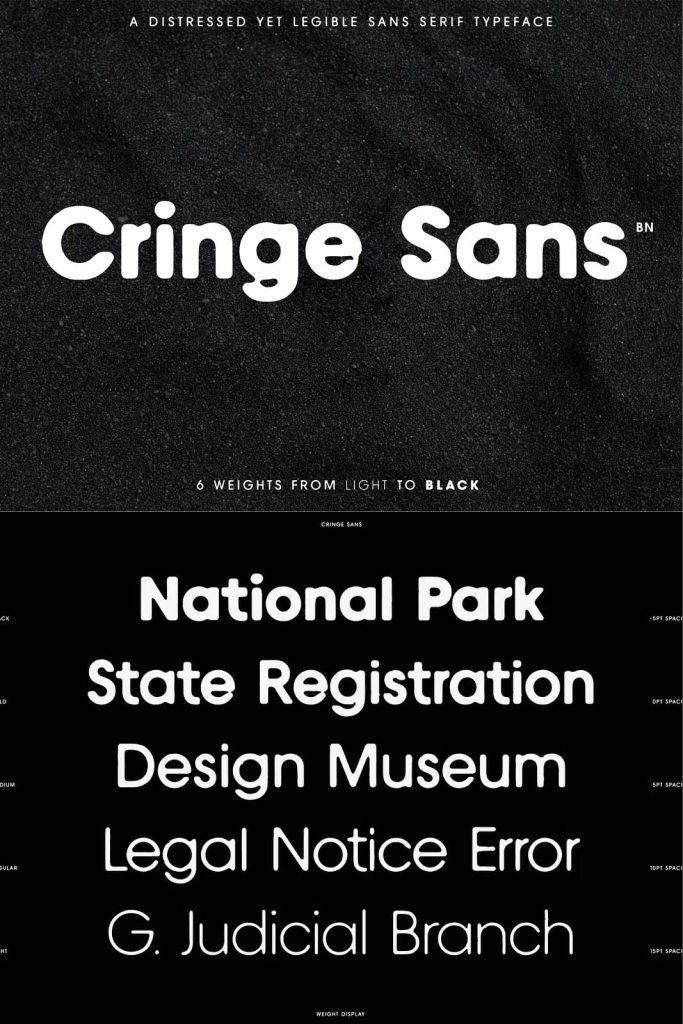
A distressed typeface design for legibility and to give your brand/design a unique look and feel! Each weight (and character) has been meticulously crafted giving each character unique attributes between variables.